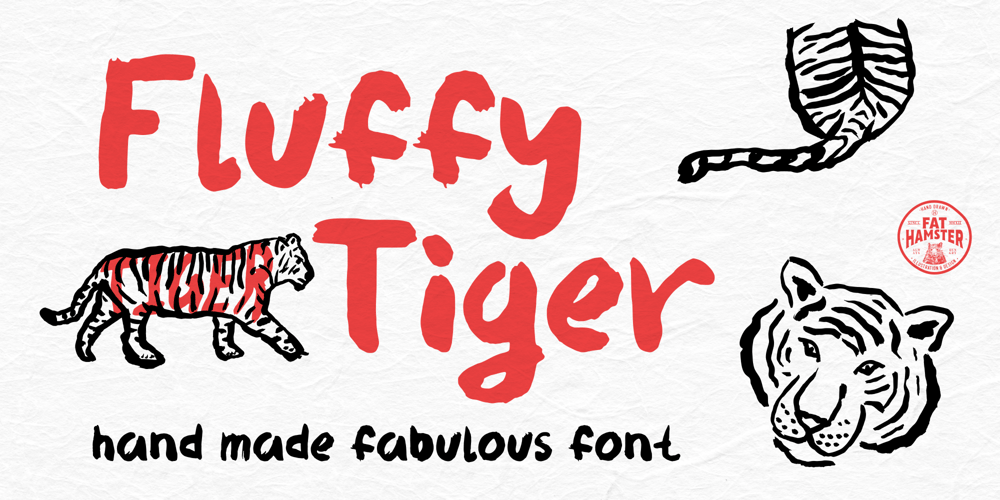
Fluffy Tiger Font Family was designed by Alesia Kutsian, Aliaksei Hvozdzeu and published by Fat Hamster. Fluffy Tiger contains 1 styles and family package options. Fluffy Tiger – Hand made brush fontSoft & passionately handwritten by brush font perfect for statement, flyers, greeting and invitation cards, social media quotes, logo design, apparel design, label and packaging design, heading, scrapbooking, calendars, book covers.